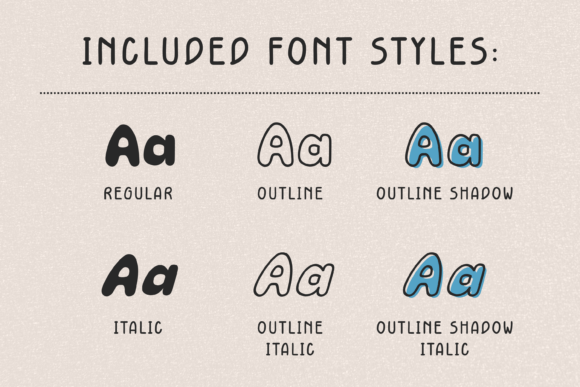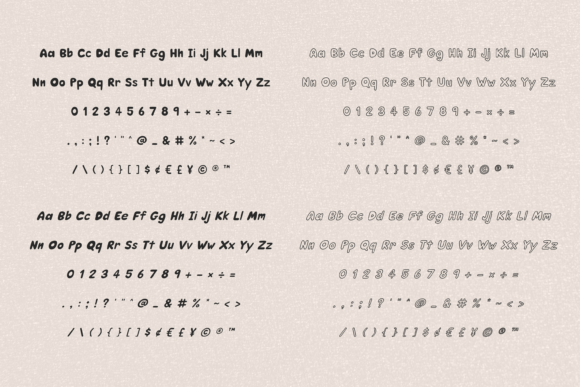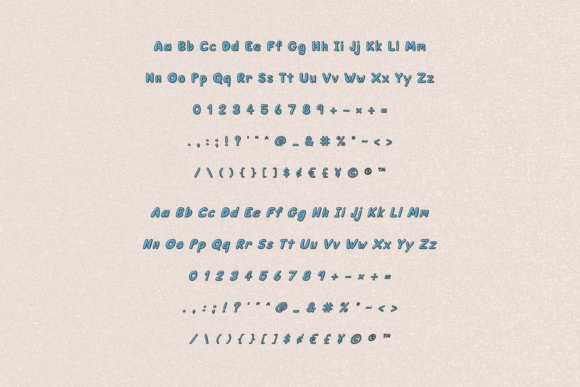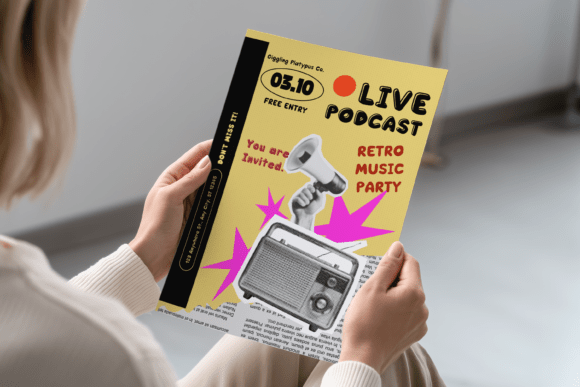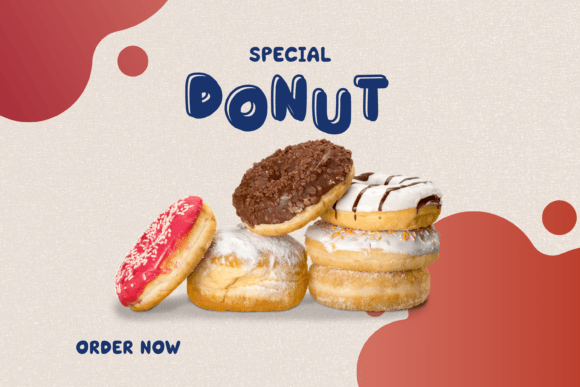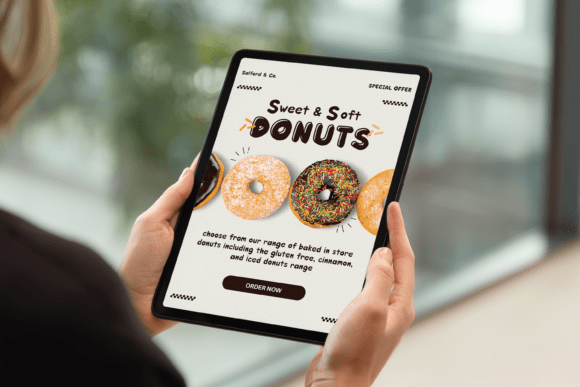
Introduction to Puffy Soda Font
✨ Puffy Soda – Rounded Bubble Font with 6 Playful Styles Bring the fun to your designs with Chubby Soda, a bouncy, retro-inspired, rounded bubble font perfect for projects that need a dose of cuteness and charm.
Whether you’re designing for kids, creating posters, launching a product, or making quirky branding elements, Chubby Soda delivers Ideal for streetwear branding, bold poster art, and youthful packaging, the Puffy Soda typeface includes 6 versatile styles, allowing you to mix and match weights to create a truly custom, “bubbly” look that pops off the screen.
Key Features of Puffy Soda Font